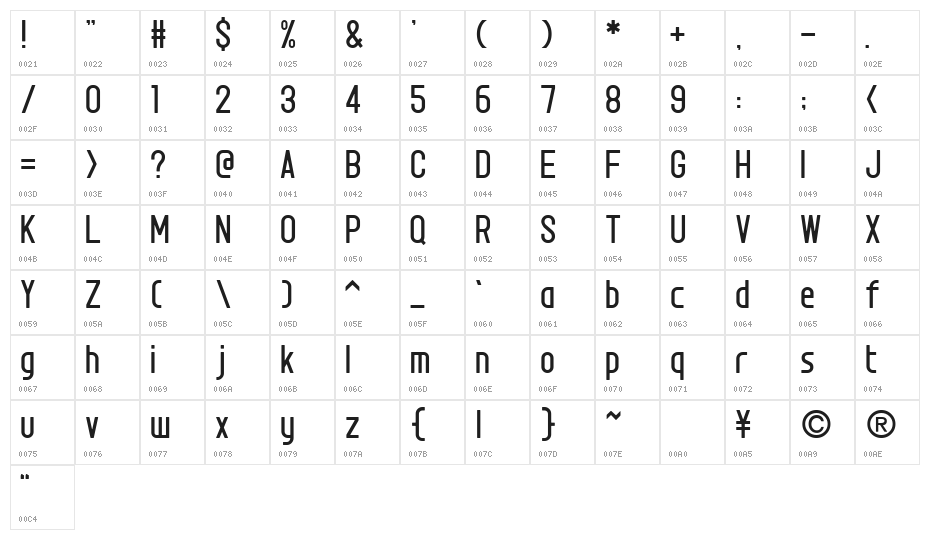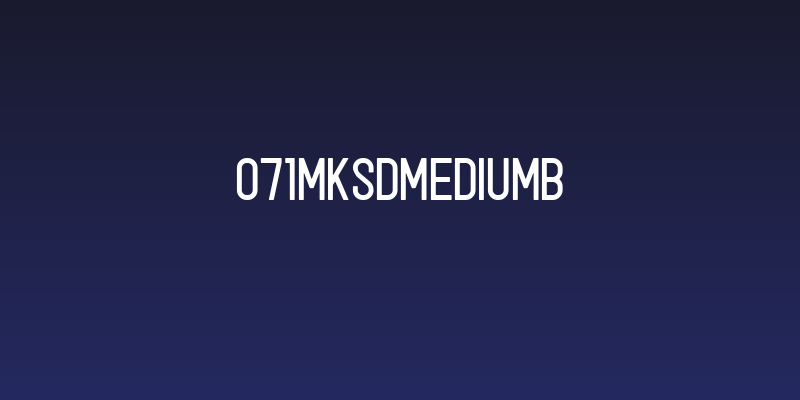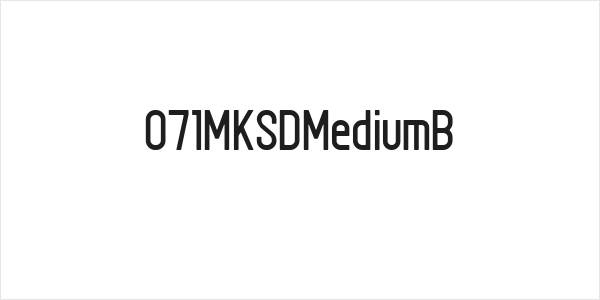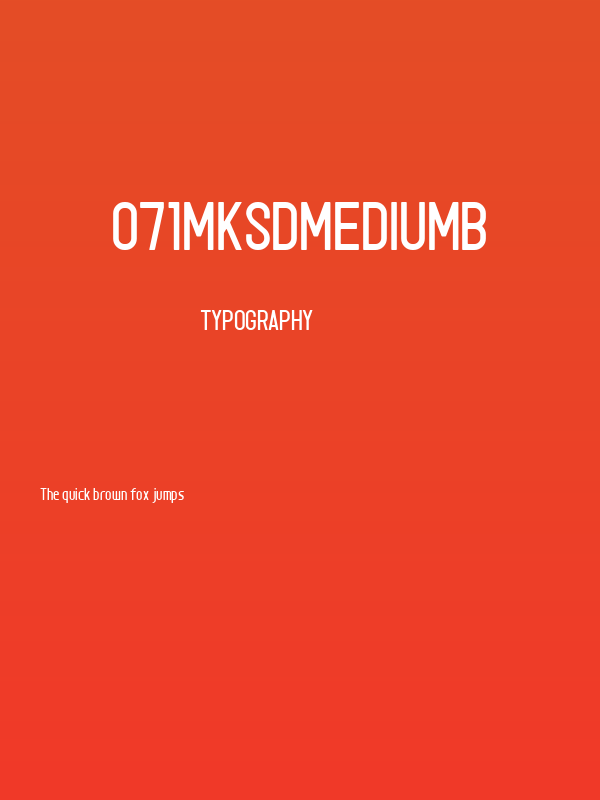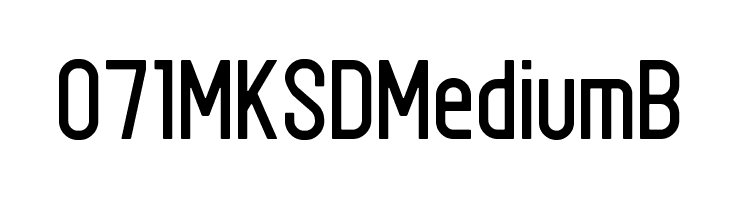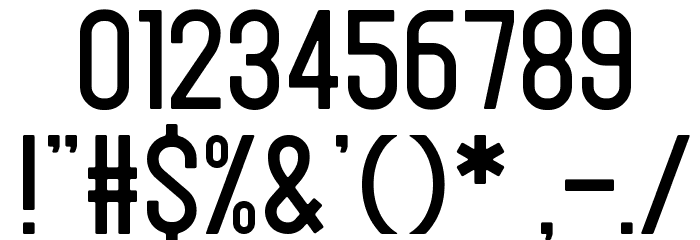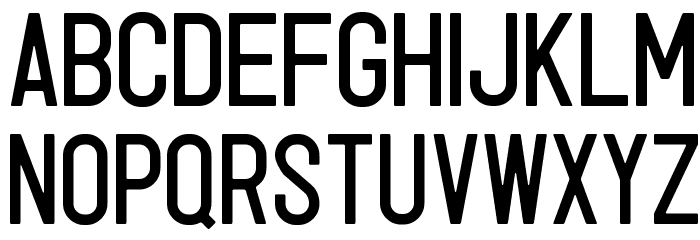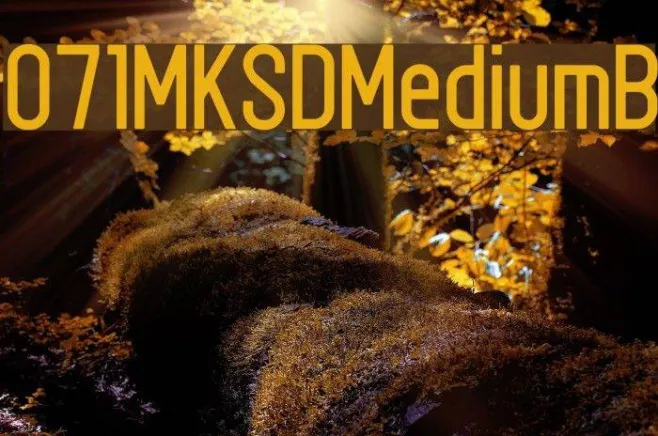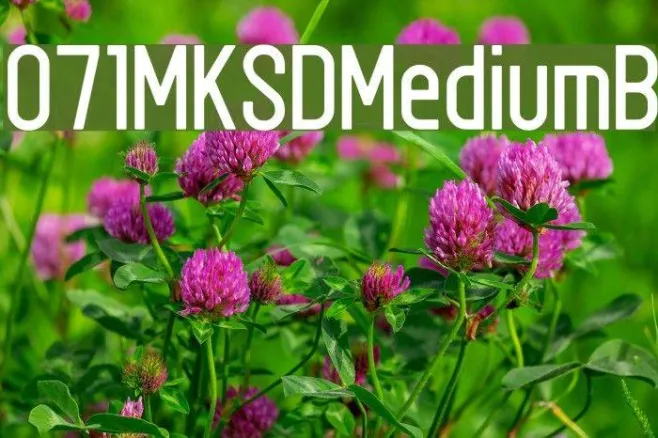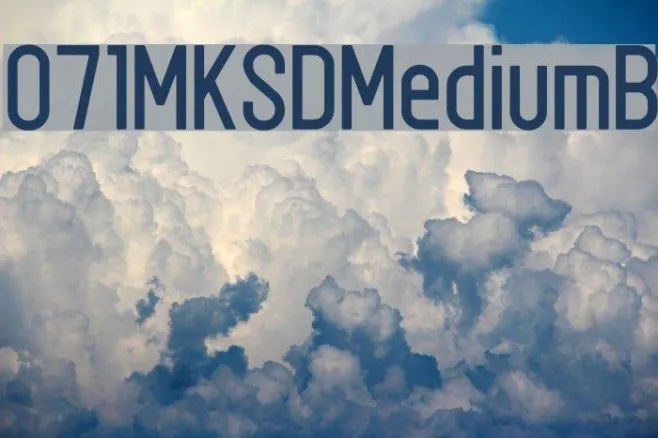
071MKSDMediumB Font
071MKSDMediumB Description
This font features a clean and modern sans-serif design with uniform stroke widths, providing a balanced and straightforward appearance. The uppercase and lowercase letters are well-proportioned, with a slightly condensed structure that enhances readability while maintaining a sleek aesthetic. The numerals are clear and distinct, making them suitable for various applications. Special characters are designed with the same attention to detail, ensuring consistency across all glyphs. This font's simplicity and clarity make it versatile for both digital and print media.
| Width | Condensed |
| Use Case | Headlines, Body text, Logos |
| Proposed Projects | Ideal for branding, web design, advertising, and editorial layouts due to its clarity and modern appeal. |